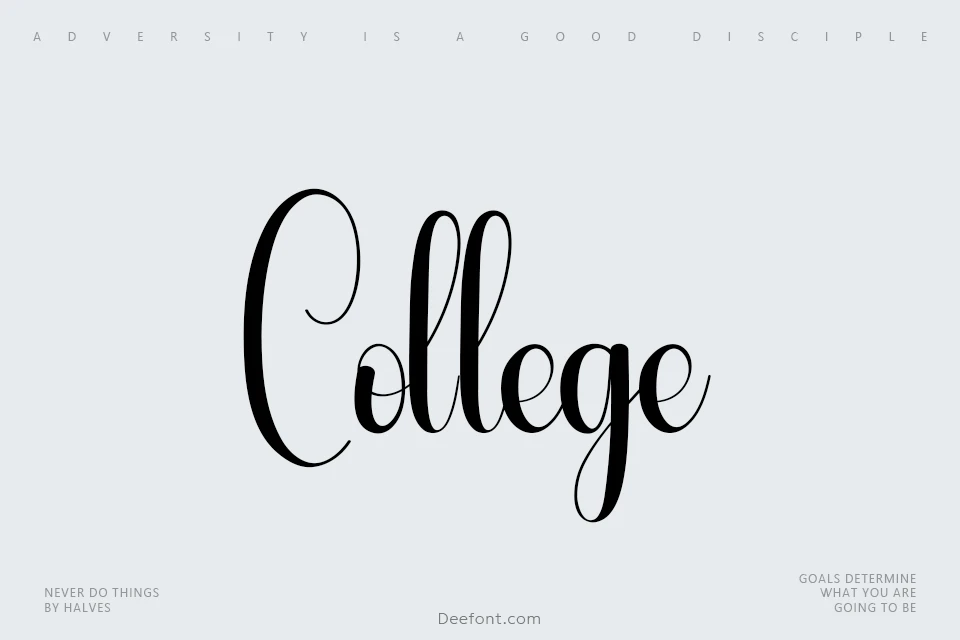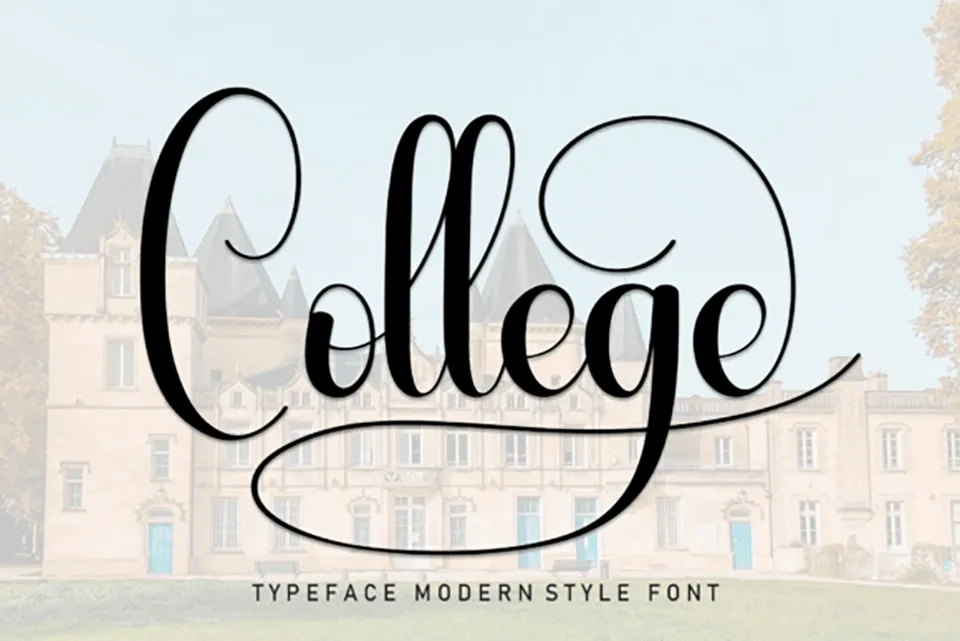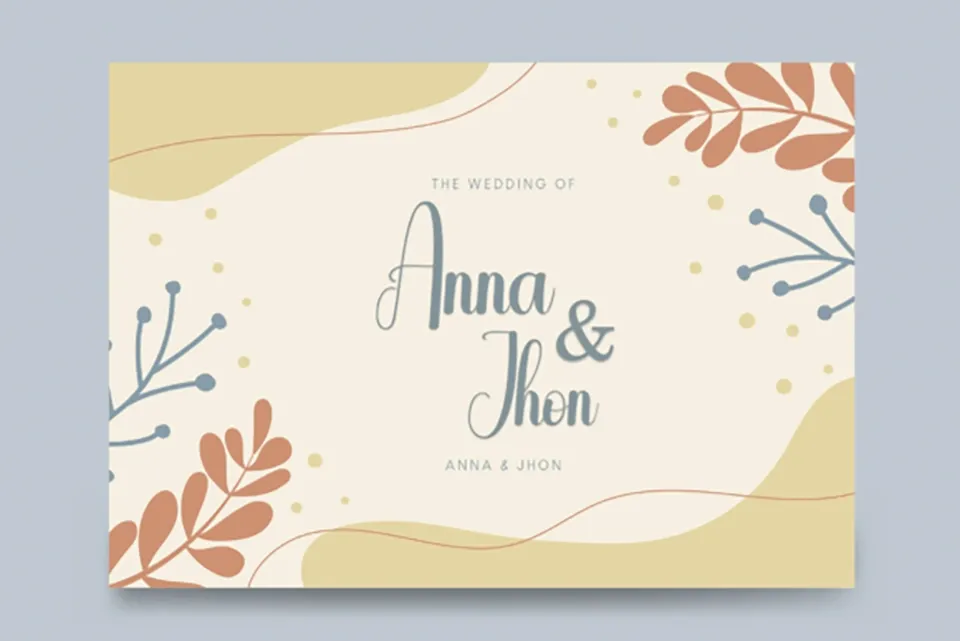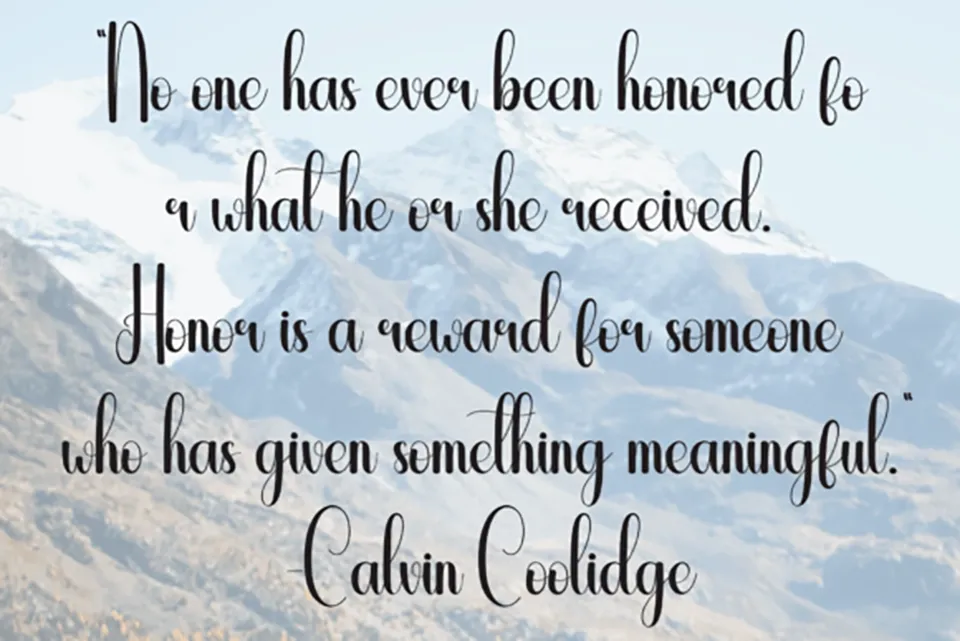
College Script Font
College Script Font is a sweet and friendly handwritten display font. With its cute and playful style, this font is perfect for wedding invitations, greeting cards, or any design that needs a touch of fun and personality.